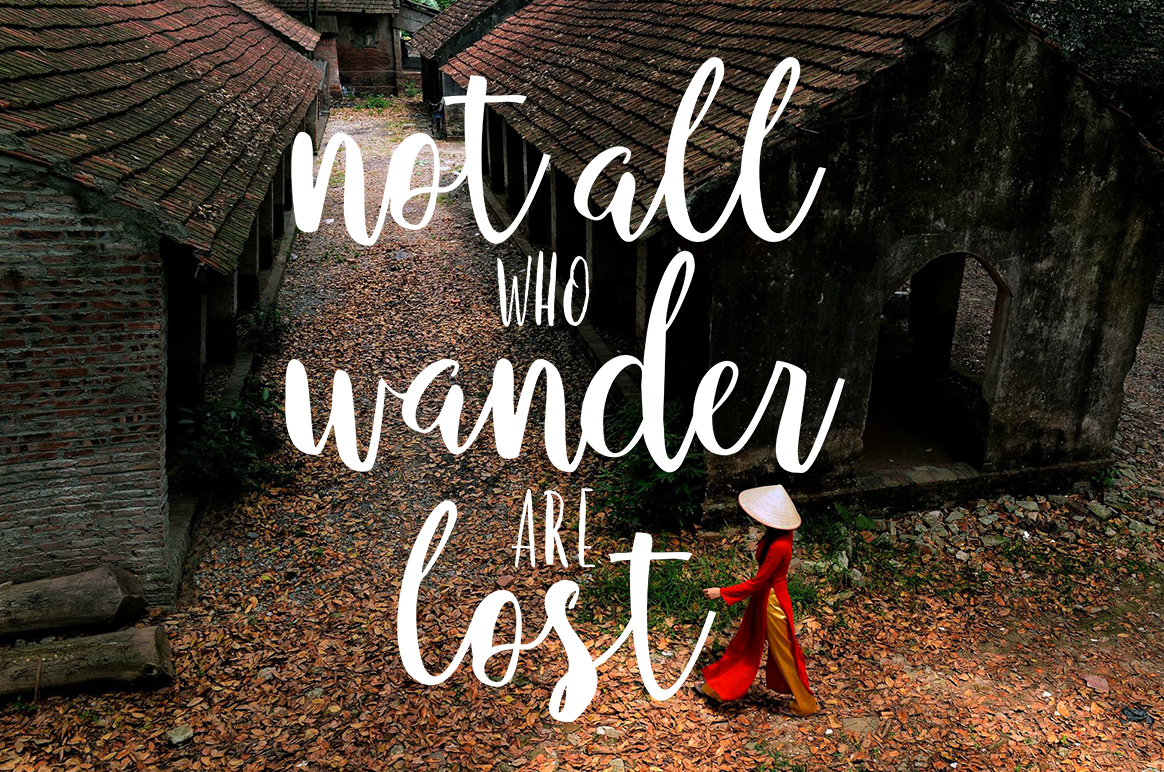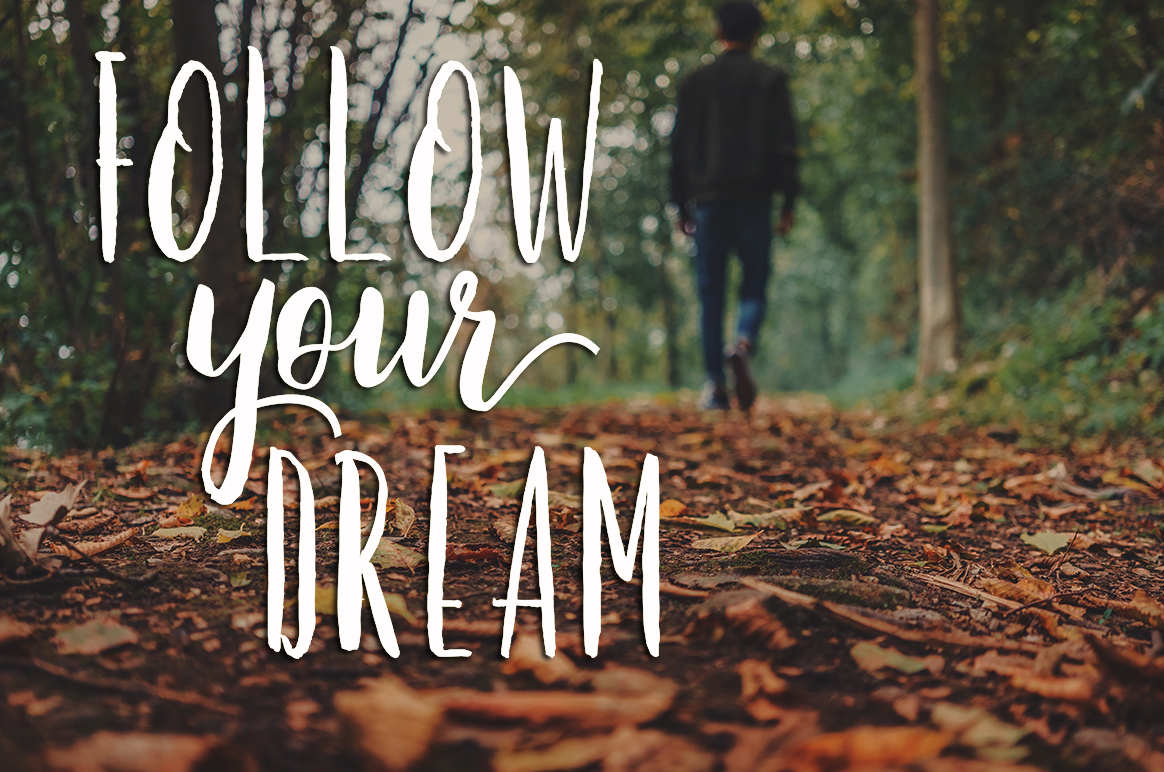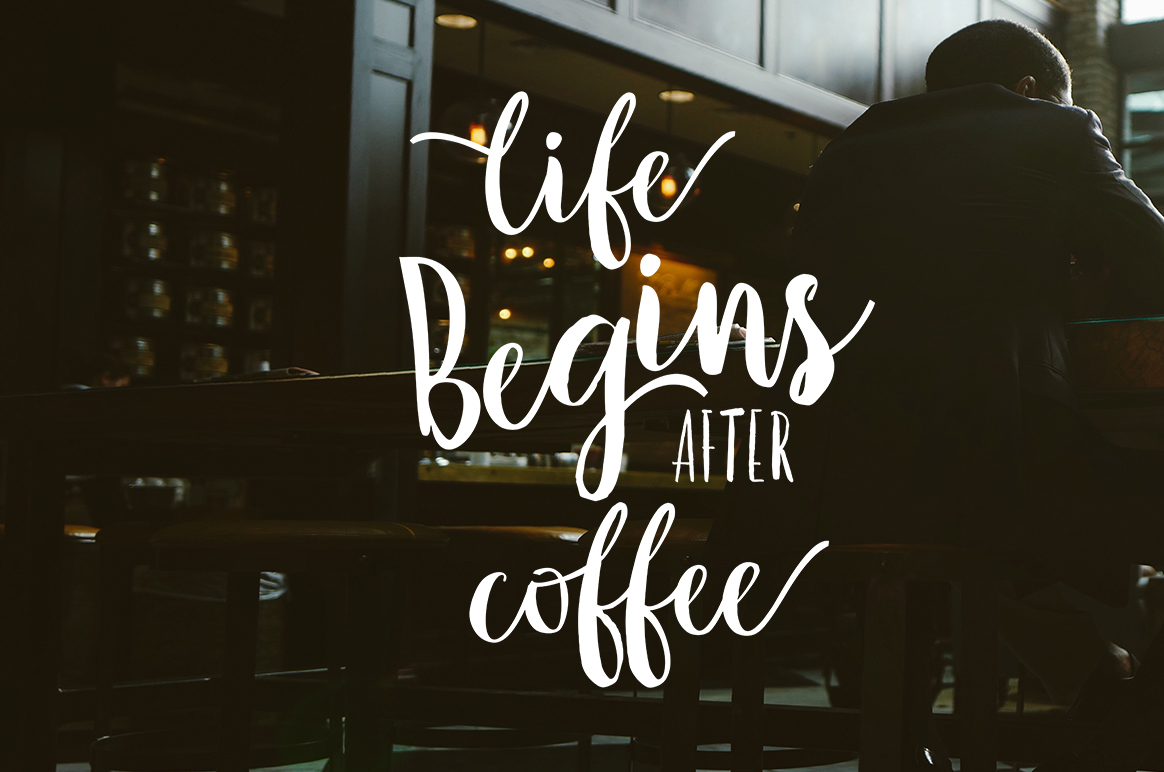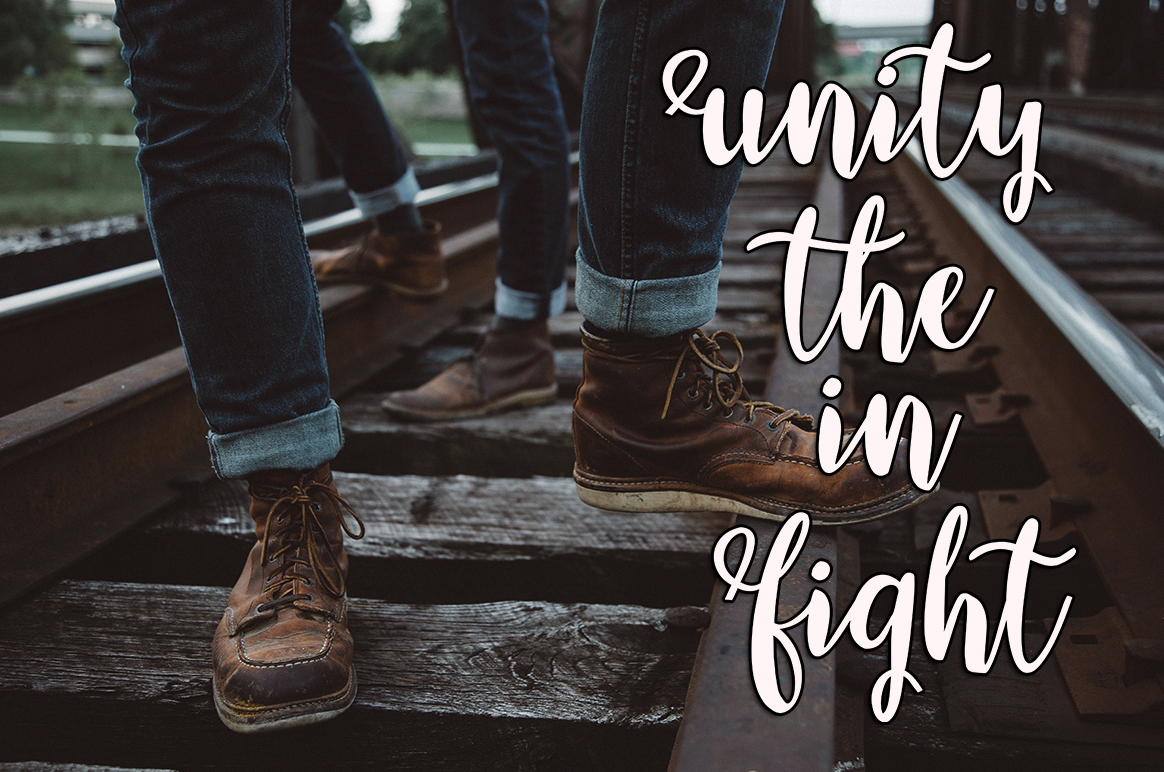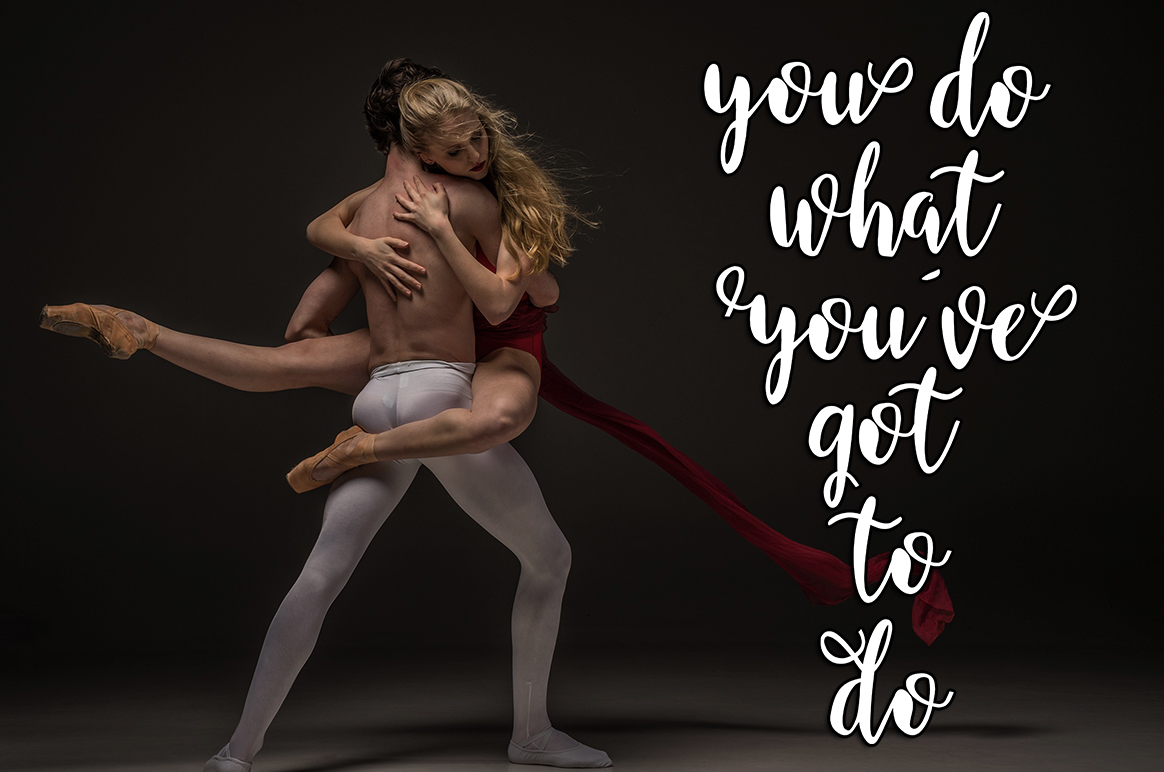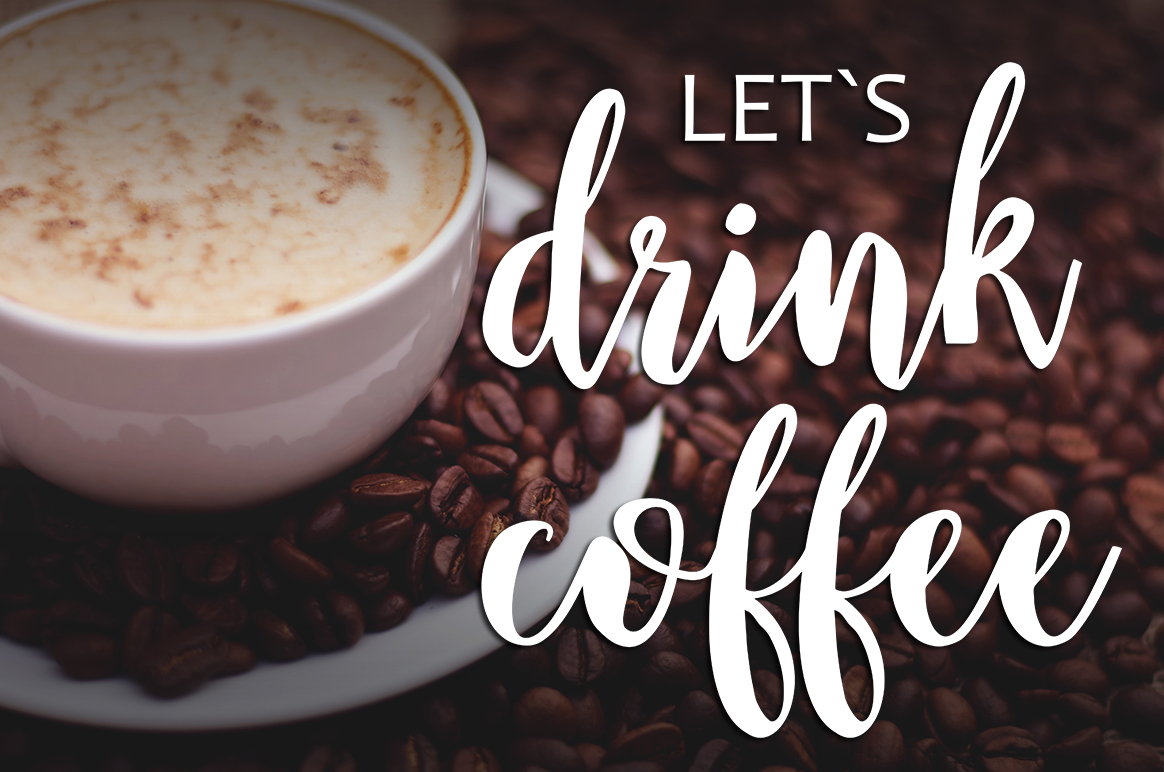
Introducing Girlboss Script Font: The Embodiment of Modern Femininity and Confidence
In the world of typography, fonts play a crucial role in conveying messages, expressing personalities, and setting the tone for various design projects. For designers, crafters, and anyone looking for a unique and impactful font, Girlboss Script Font is an exciting addition to the typography family. This modern hand-drawn brush font exudes a dynamic, energetic style that is both feminine and commanding, making it a perfect fit for its namesake.
What Makes Girlboss Script Font Stand Out?
Girlboss Script Font is not just another script font; it’s a statement piece. Its modern hand-drawn brush style gives it a fresh and contemporary look that’s perfect for projects requiring a touch of elegance and authority. The font’s dynamic and energetic feel makes it versatile for use in various design projects, from branding and advertising to packaging and digital media.
Key Features of Girlboss Script Font
- Modern Hand-Drawn Brush Style: The font boasts a unique, hand-crafted look that sets it apart from more traditional fonts.
- Dynamic and Energetic: Its lively feel makes it perfect for projects that need to convey enthusiasm and confidence.
- Feminine yet Strong: Girlboss Script Font strikes the perfect balance between femininity and authority, making it ideal for brands and projects that want to convey a sense of powerful elegance.
- Versatility: Whether you’re working on a logo, a website, a product label, or social media content, this font can adapt to various design needs.
Who Can Benefit from Girlboss Script Font?
Girlboss Script Font is a valuable resource for a wide range of designers and crafters, including:
- Graphic Designers: Looking for a unique font to add personality to their designs.
- Branding Experts: Seeking to create a memorable and impactful brand image.
- Crafters and Makers: Needing a distinctive font for product labels, packaging, or promotional materials.
- Digital Content Creators: Aiming to enhance their online presence with engaging and stylish typography.
How to Use Girlboss Script Font
Integrating Girlboss Script Font into your design projects is straightforward. Here are some tips to get you started:
- Pair it with Neutrals: Combine the font with neutral tones or simple backgrounds to let it be the focal point.
- Experiment with Sizes: Play with different font sizes to create visual hierarchy and emphasis.
- Add Texture: Consider adding subtle textures or gradients to enhance the font’s dynamic feel.
- Mix and Match: Don’t be afraid to experiment with different font combinations to create a unique look.
Girlboss Script Font is more than just a font; it’s a design statement. Its modern, hand-drawn brush style, dynamic energy, and balanced blend of femininity and strength make it a versatile and powerful tool for designers and crafters. Whether you’re looking to make a bold statement or add a touch of elegance to your projects, Girlboss Script Font is an excellent choice. Download it today and let your designs speak with confidence and style.